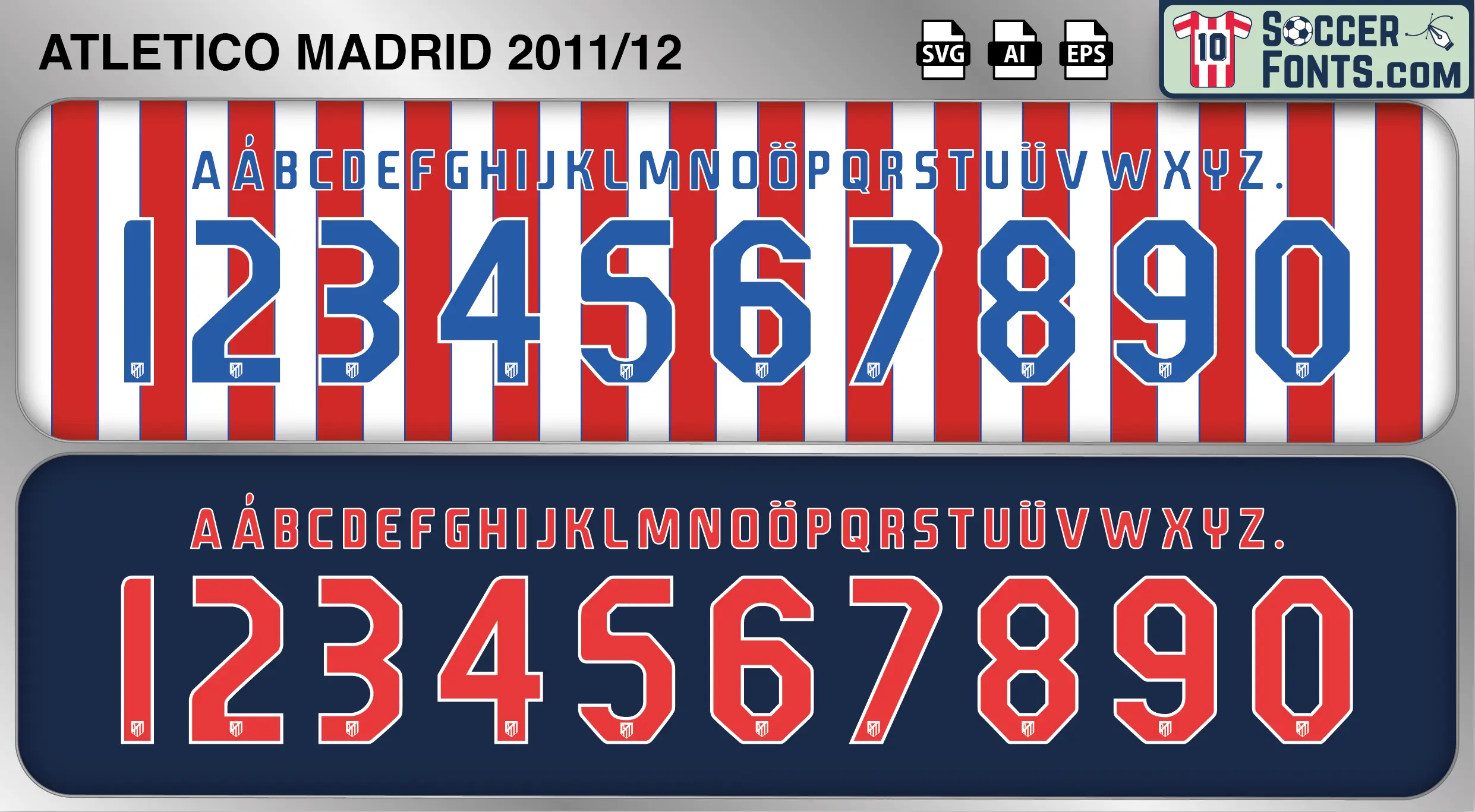
Atletico Madrid 2011-12 Font
The Atletico Madrid 2011-12 font is an editable soccer jersey lettering design in vector format inspired by the Atletico Madrid kit style used during the 2011-12 football season. This football font artwork is prepared for football shirt recreations, custom jersey projects, football kit mockups and sports graphic design workflows.
Atletico Madrid 2011-12 font football shirt vector design